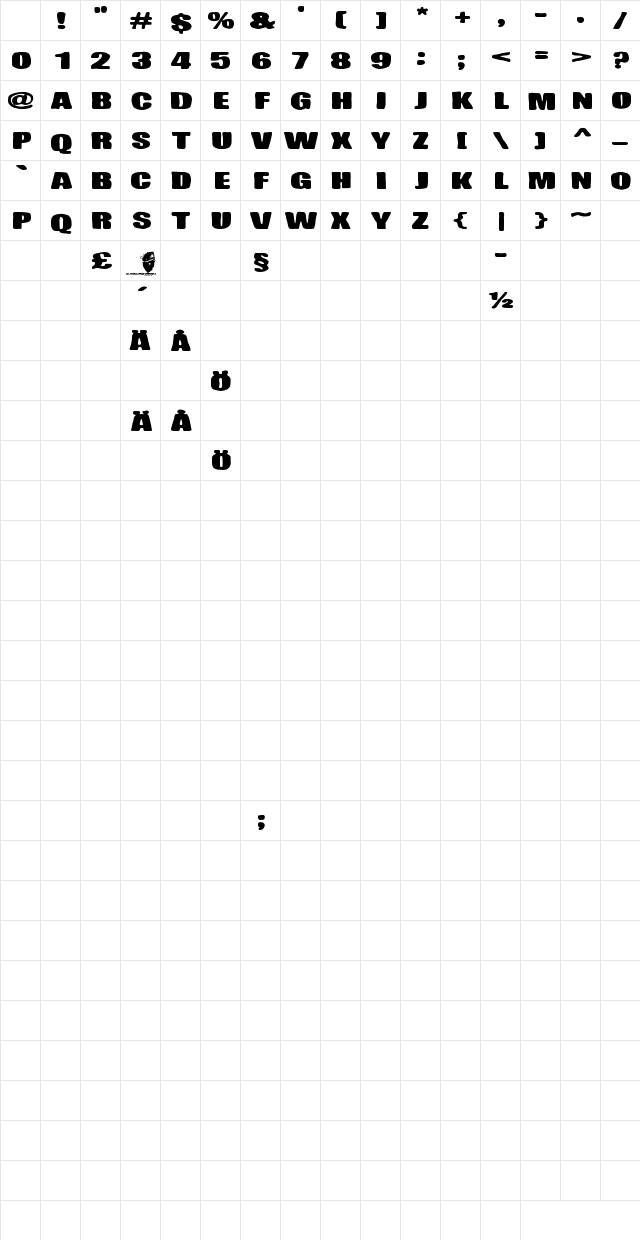
Hiekkalasi Regular
Design Context for Hiekkalasi
Hiekkalasi is a composed and adaptable typeface that performs quietly and consistently across a wide range of design contexts.
Pro Tip: Use Hiekkalasi in both headline and body roles to test its range before committing to a single application.